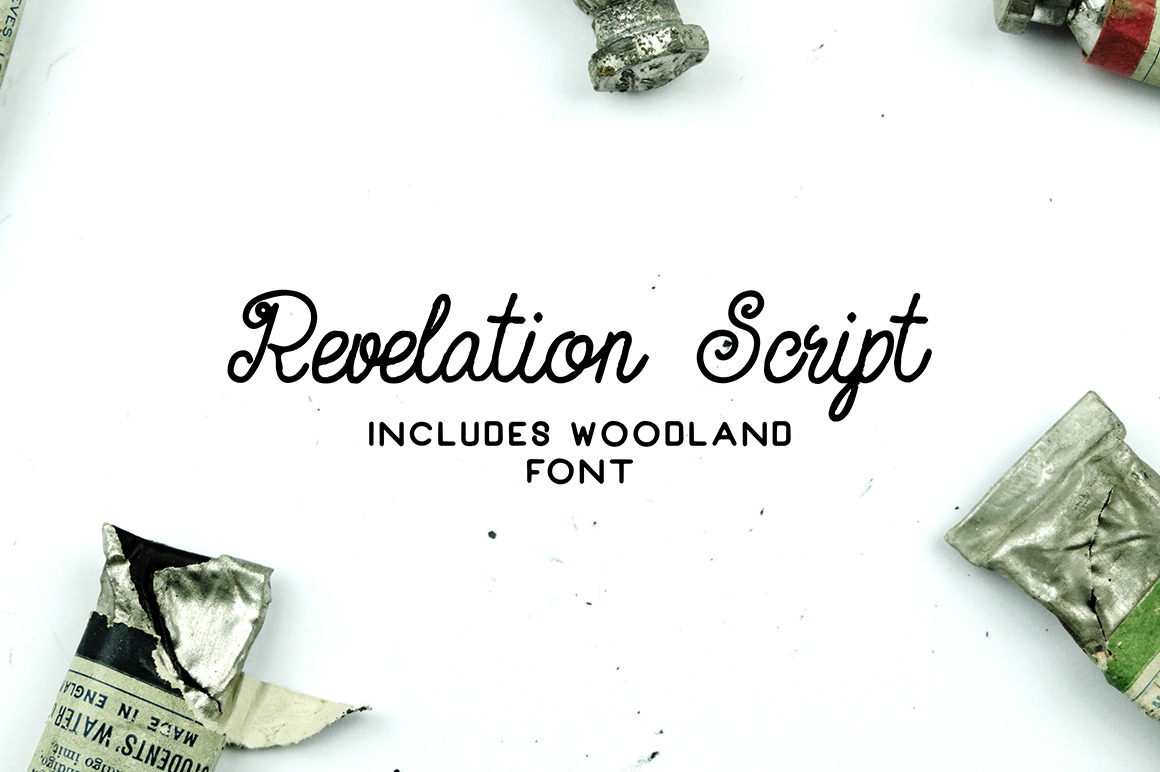
Revelation Script + Woodland Font
Introducing | Revelation Script
Revelation Script is a simple handmade font. It works great for rustic or vintage style work. If you have glasses, beard and a love for 1920's culture, this is the font for you!
Includes Woodland Font Family!
Great for getting that handcrafted look you've been looking for!
- Also Includes Woodland Font